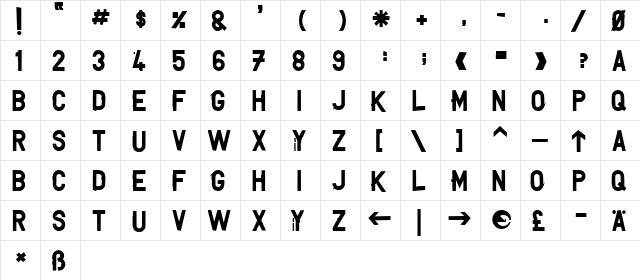
UNCONFORM Black
Design Context for UNCONFORM Typeface
UNCONFORM is a composed and adaptable typeface that performs quietly and consistently across a wide range of design contexts.
Pro Tip: Pair UNCONFORM with a font of contrasting weight or personality to build a more expressive typographic hierarchy.